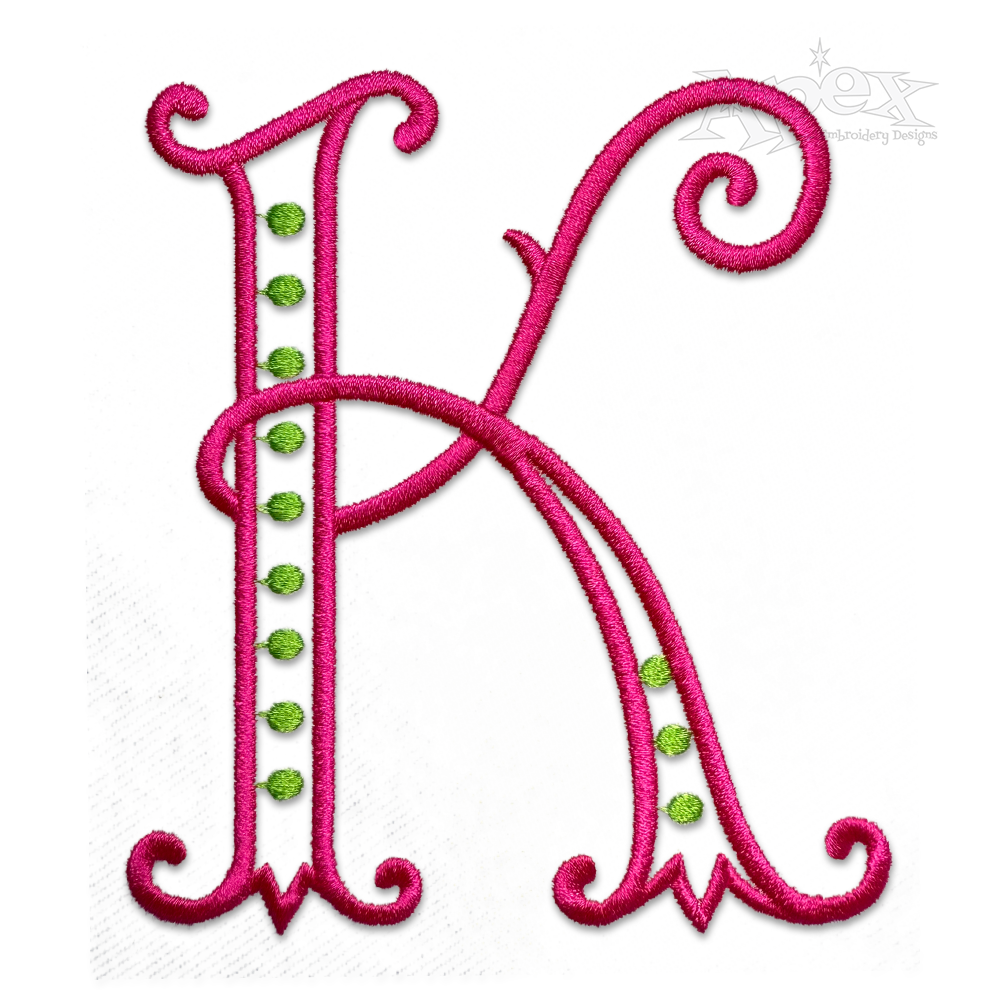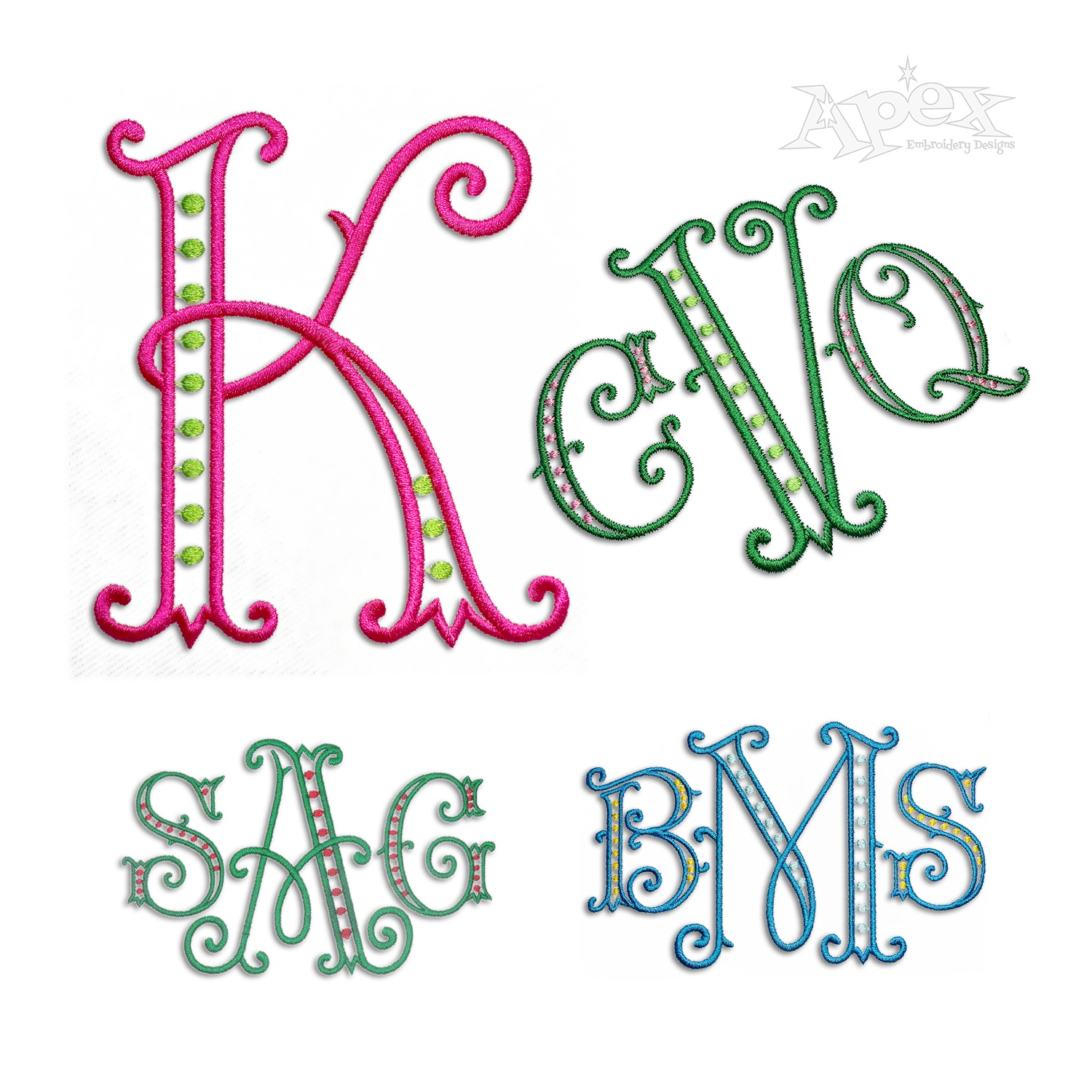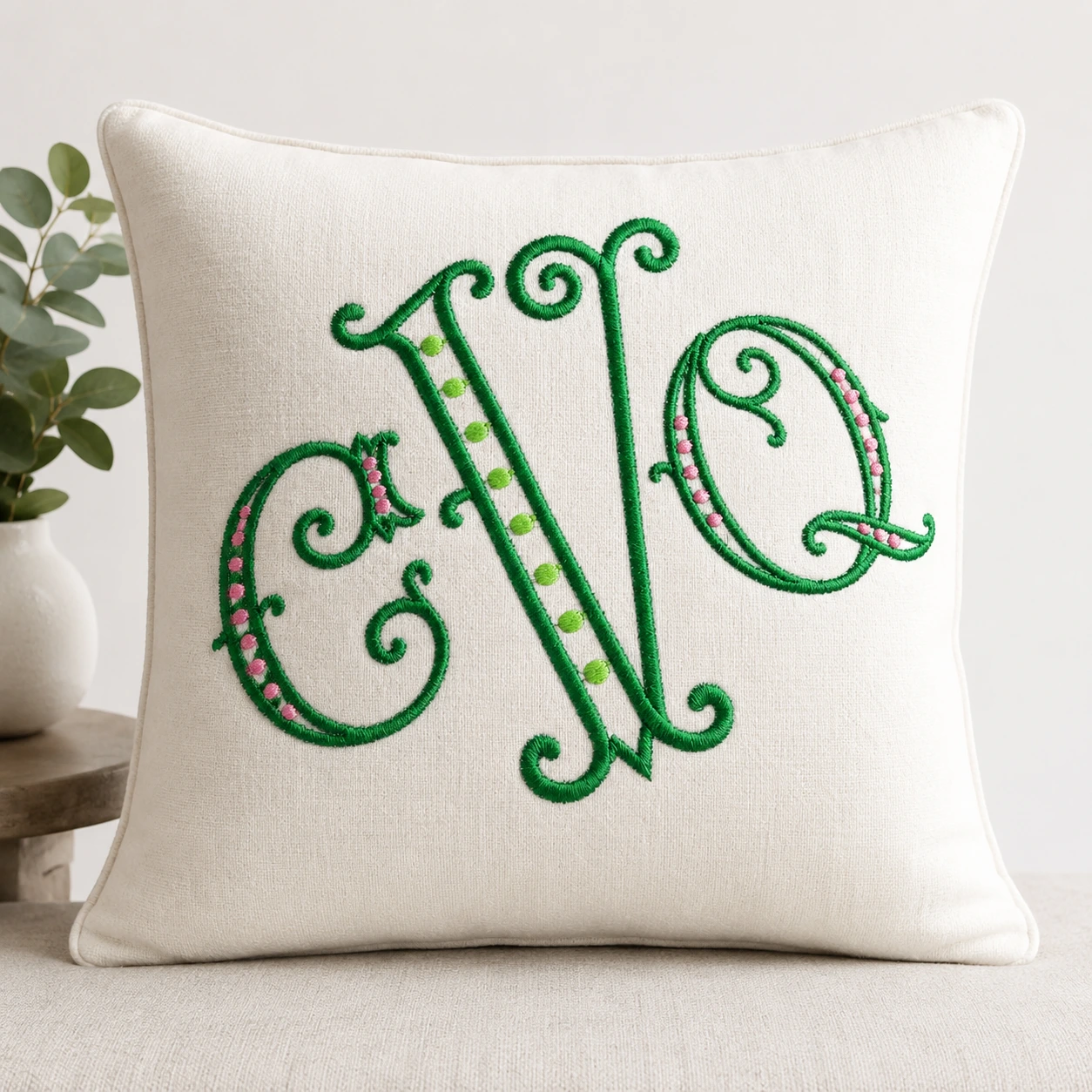
Arabesque Dots Fancy Machine Embroidery Font
Create bold and decorative lettering with this Arabesque Dots Machine Embroidery Font. This fancy embroidery font features elegant arabesque-style curves, scroll details, and playful polka dot accents for a retro, circus-inspired, and baroque beauty look.
The font is designed for statement lettering projects, including large initials, monograms, names, short words, and decorative alphabet embroidery. The stitched outlines, curled letter details, and dotted accents make it a great choice when you want your embroidery text to look fancy, fun, and eye-catching.
Design Features:
- Arabesque embroidery font
- Polka dot accent lettering
- Retro fancy circus style
- Baroque beauty inspired alphabet
- Decorative scroll and curl details
- Great for large monograms, initials, names, and statement lettering
This Arabesque Dots embroidery font is ideal for creating fun, fancy, and decorative machine embroidery lettering with a bold retro look and charming polka dot details.